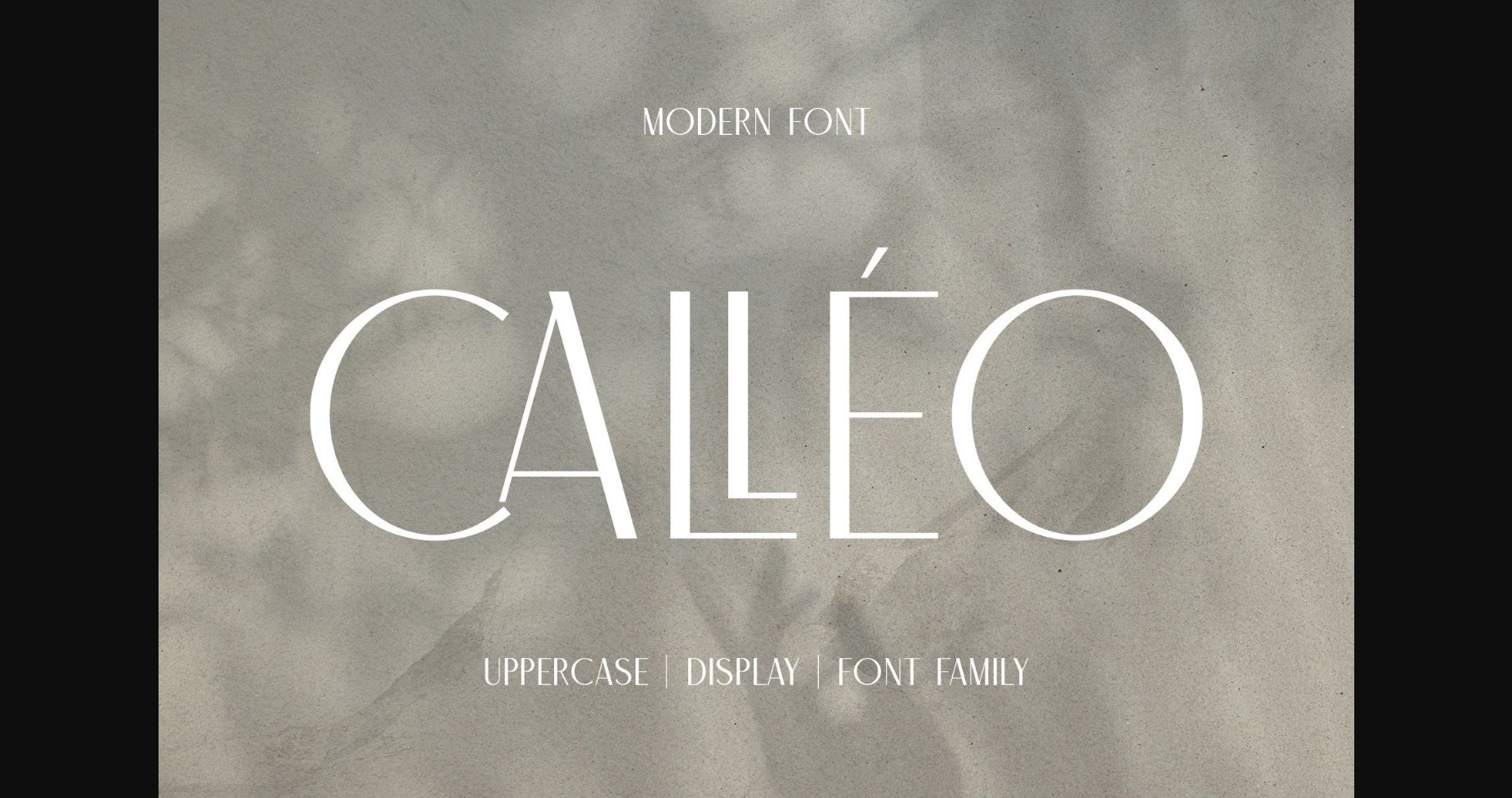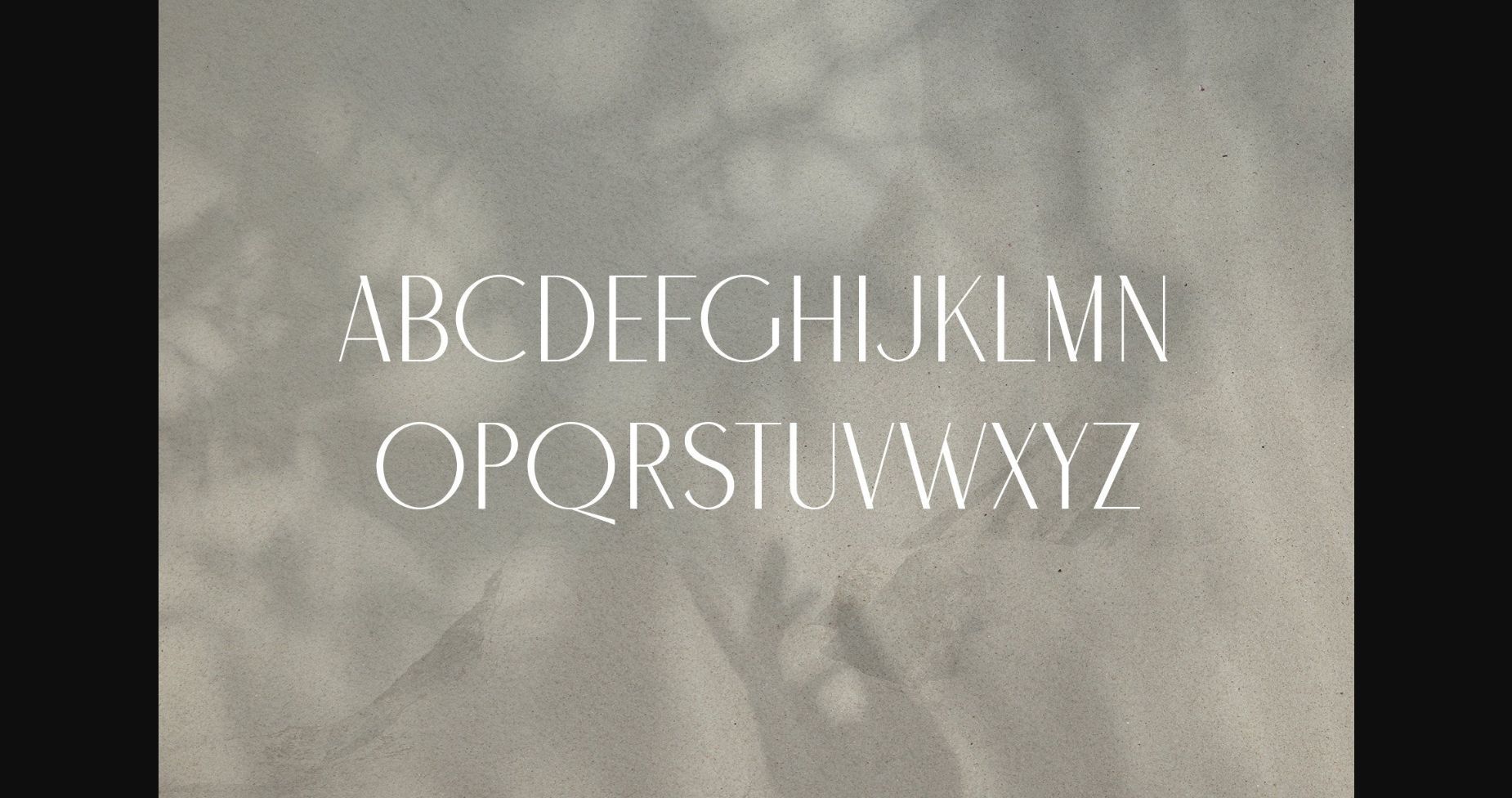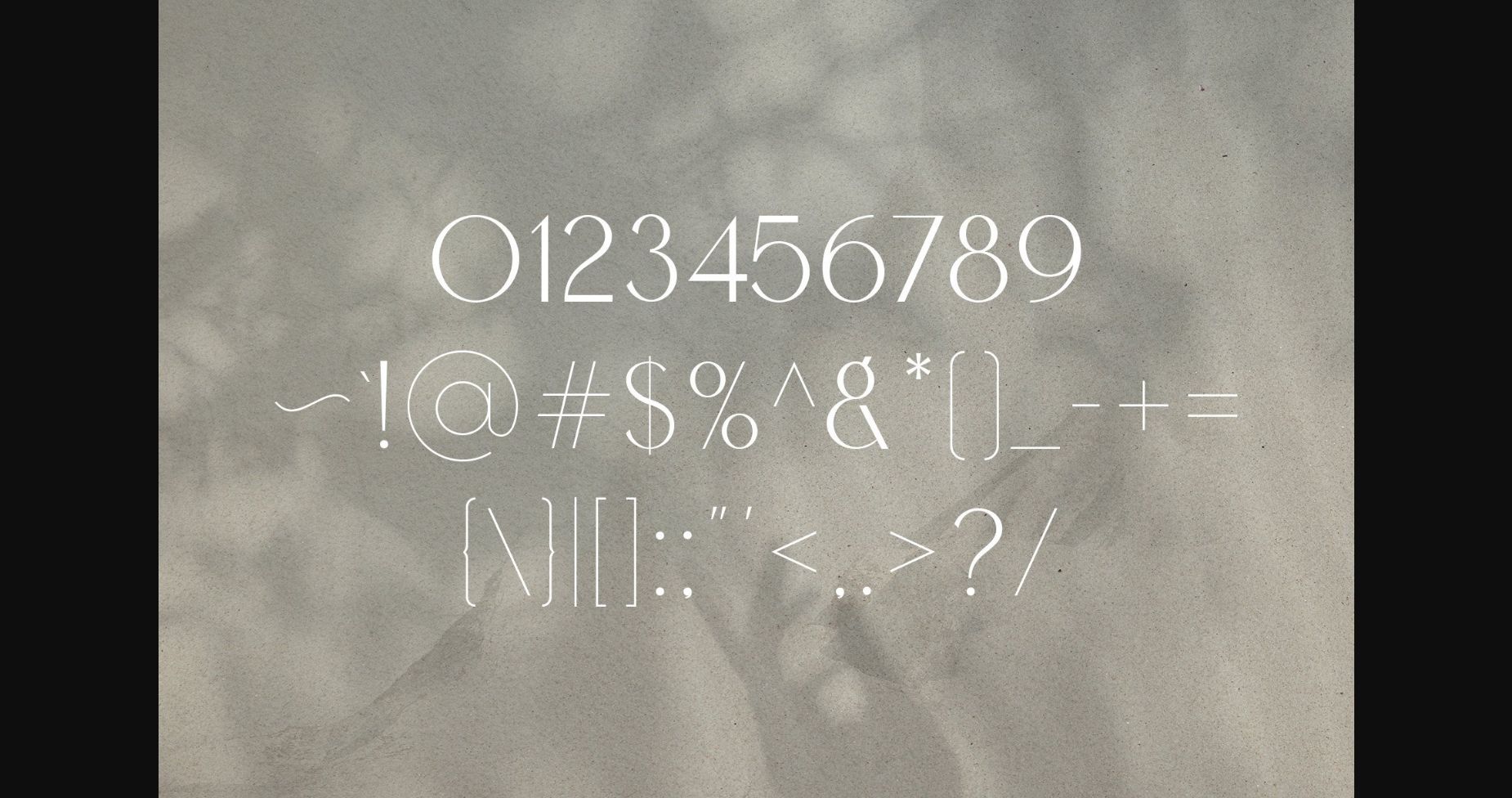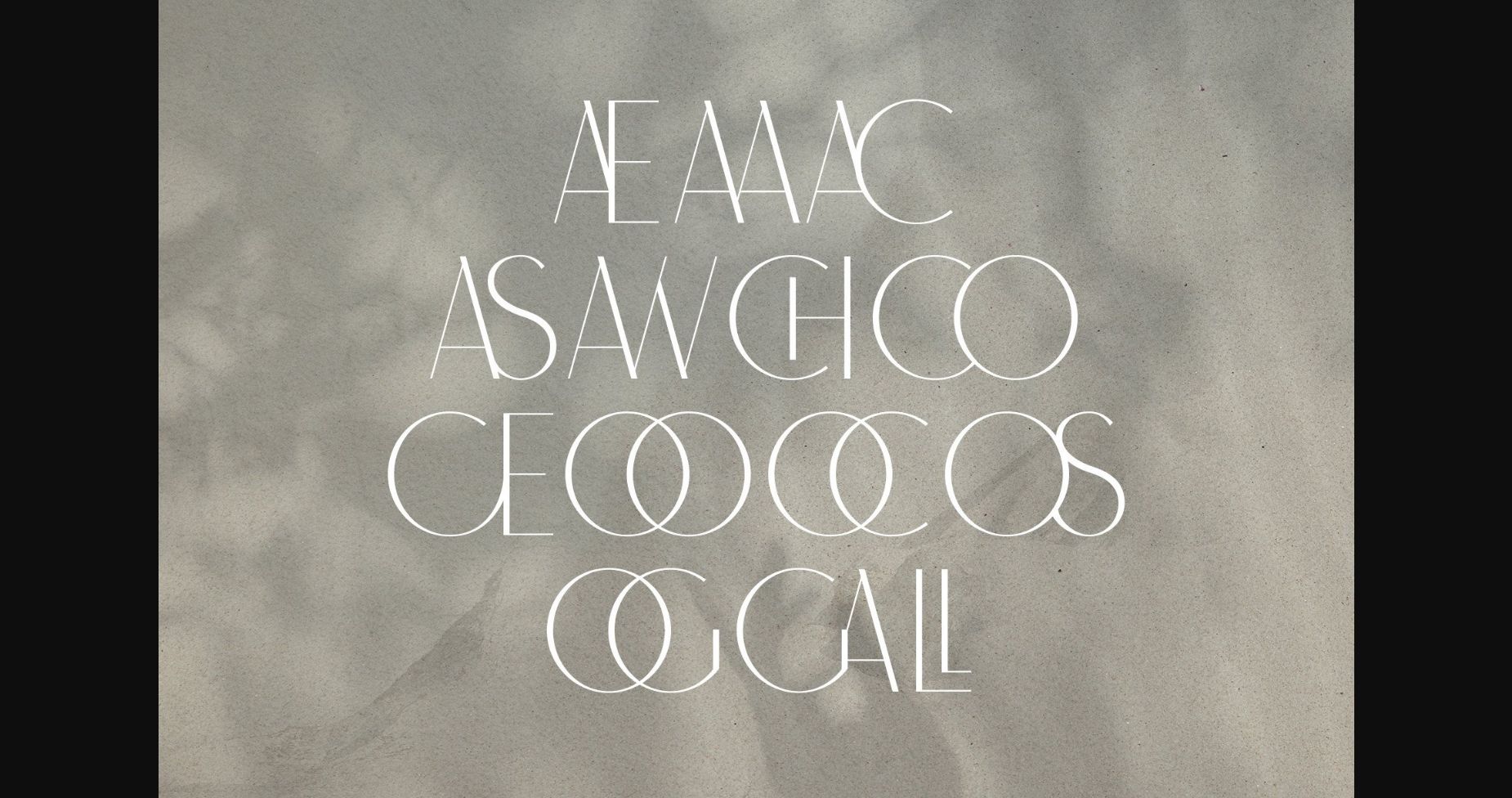
About Calleo Font
Calleo is a very minimalist and contrasting font suitable for logos and short words. It is also possible that this font can be used for long sentences. Calleo is very feminine and has a strong character.